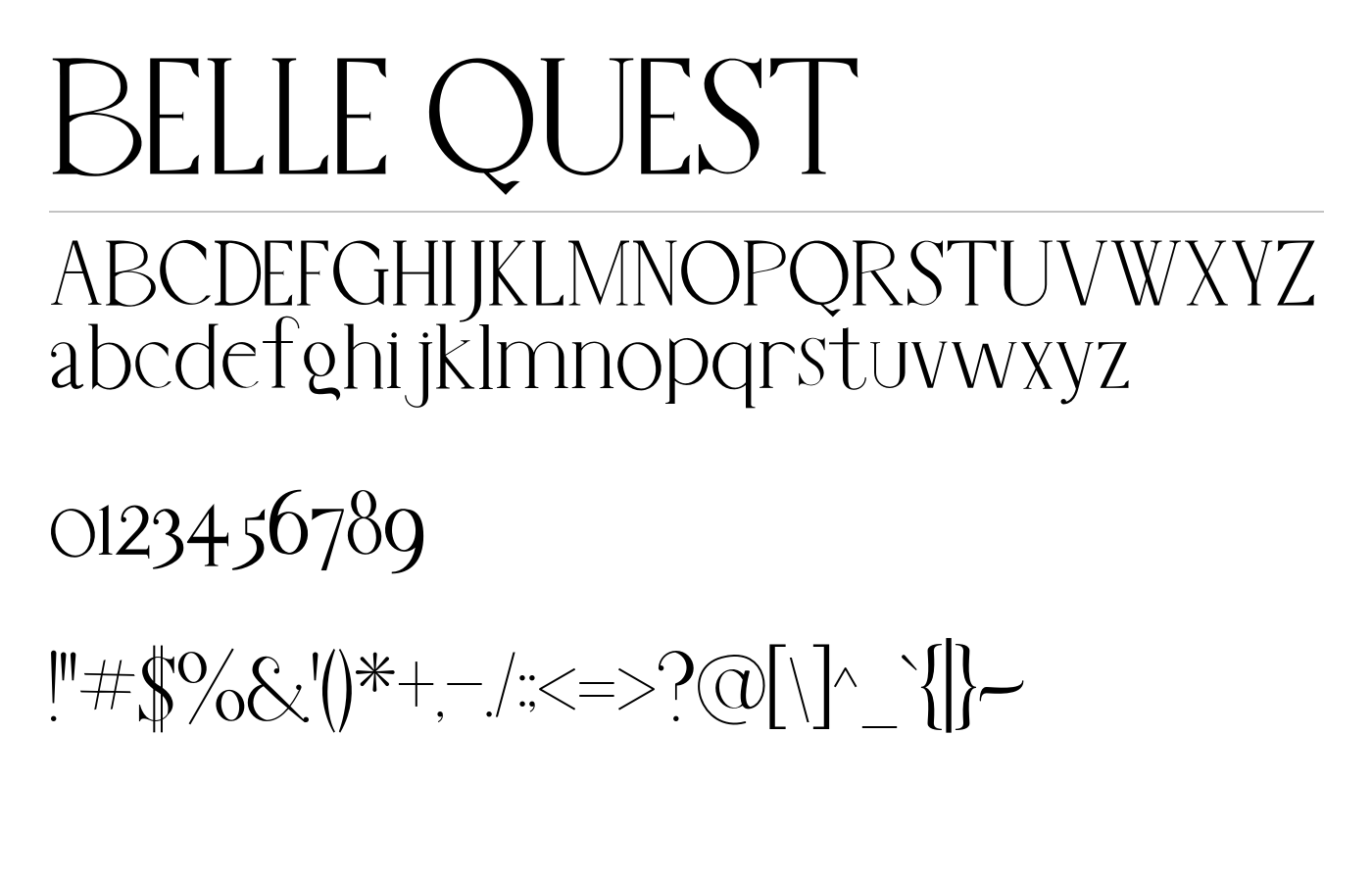
Belle Quest is an elegant serif font with a delicate, high-contrast stroke that blends classic sophistication with a modern, artistic flair. Its tall, slender letterforms feature unique, refined details and lightly bracketed serifs, making it perfect for upscale branding, editorial headlines, and luxury packaging where a graceful yet distinctive look is desired. This font’s stylish personality communicates refinement and creativity, ideal for projects seeking a timeless yet contemporary touch.
BELLE QUEST Font
About BELLE QUEST Font
| Font family | BELLE QUEST Font |
| Designer | FinTypeStudio |